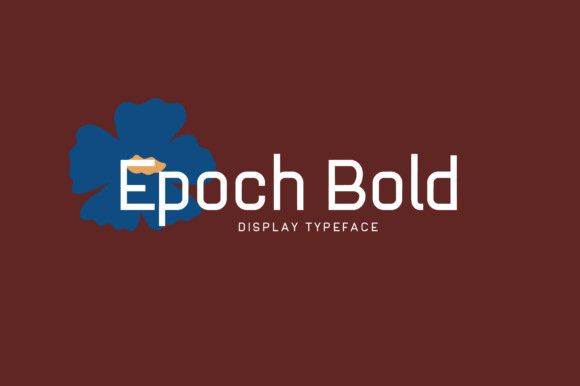
Epoch Bold Font
Epoch Bold is a great display font. It has a versatile style that makes it perfect for stationery, logos, t-shirt, paper, print design, website header, photo frame, flyer, music cover, poster, image slider, and much more.